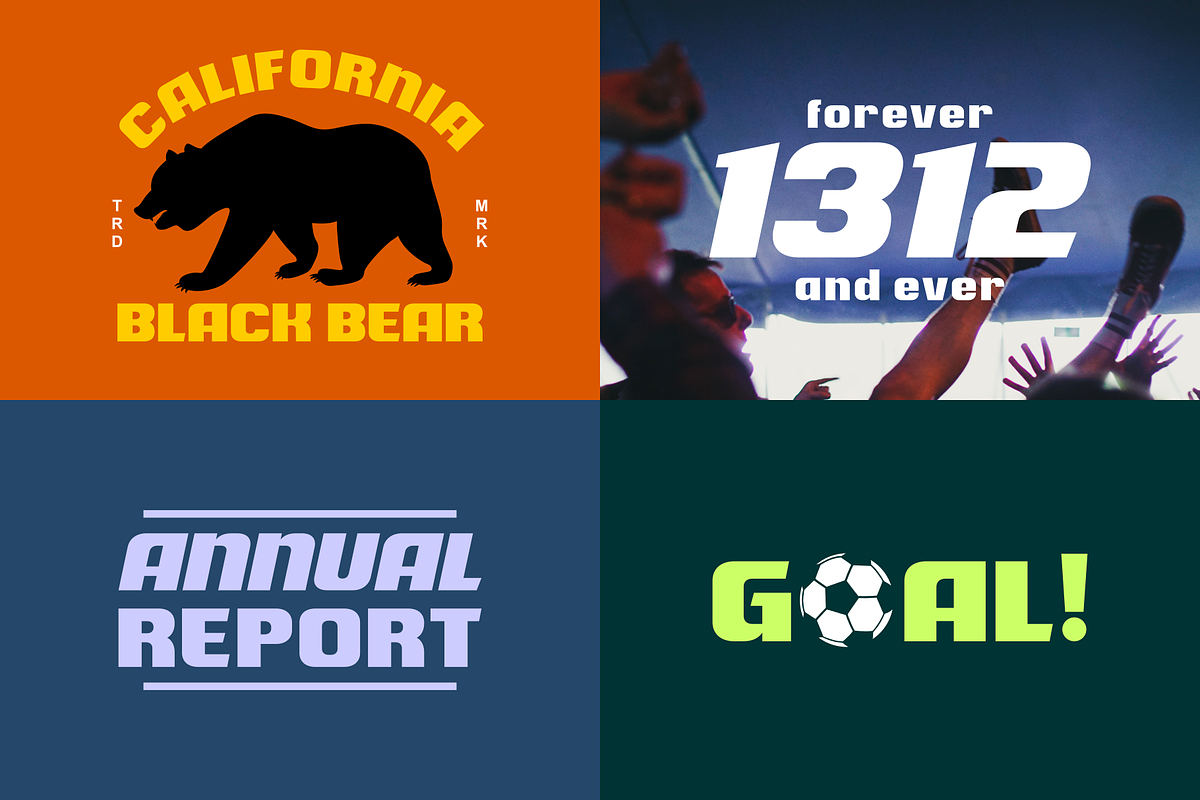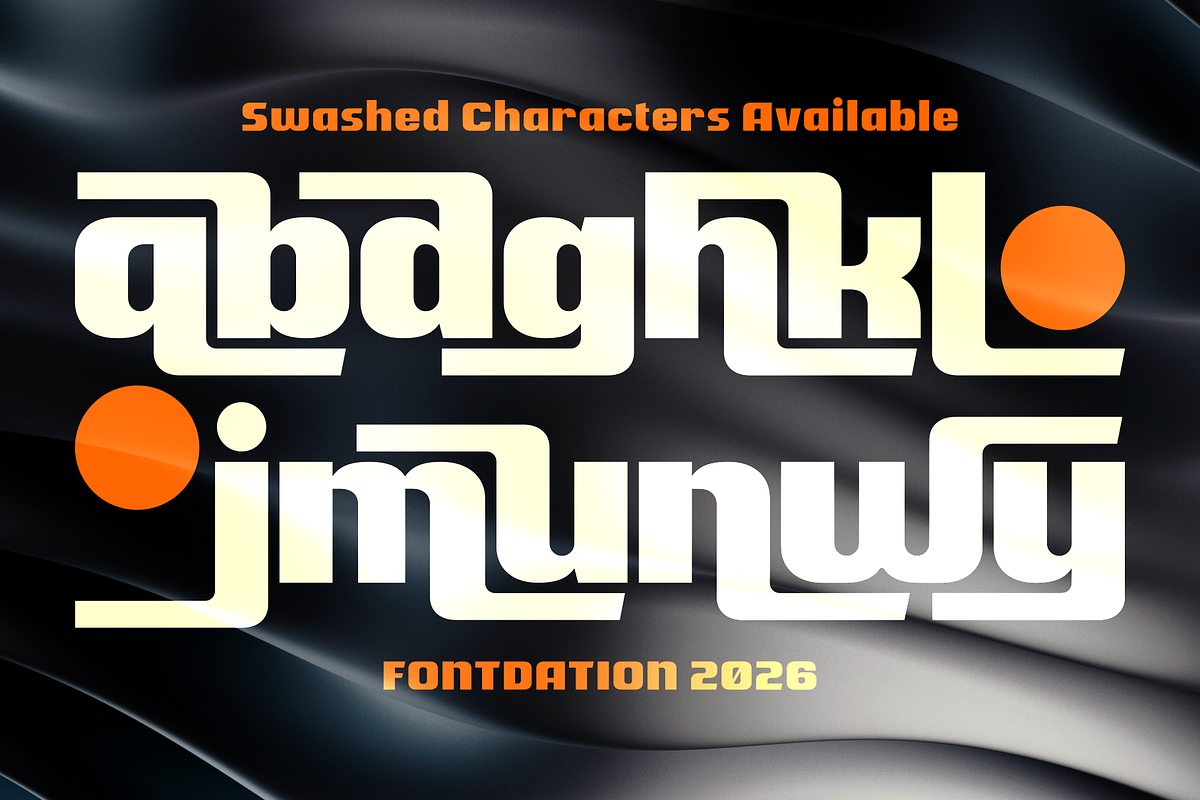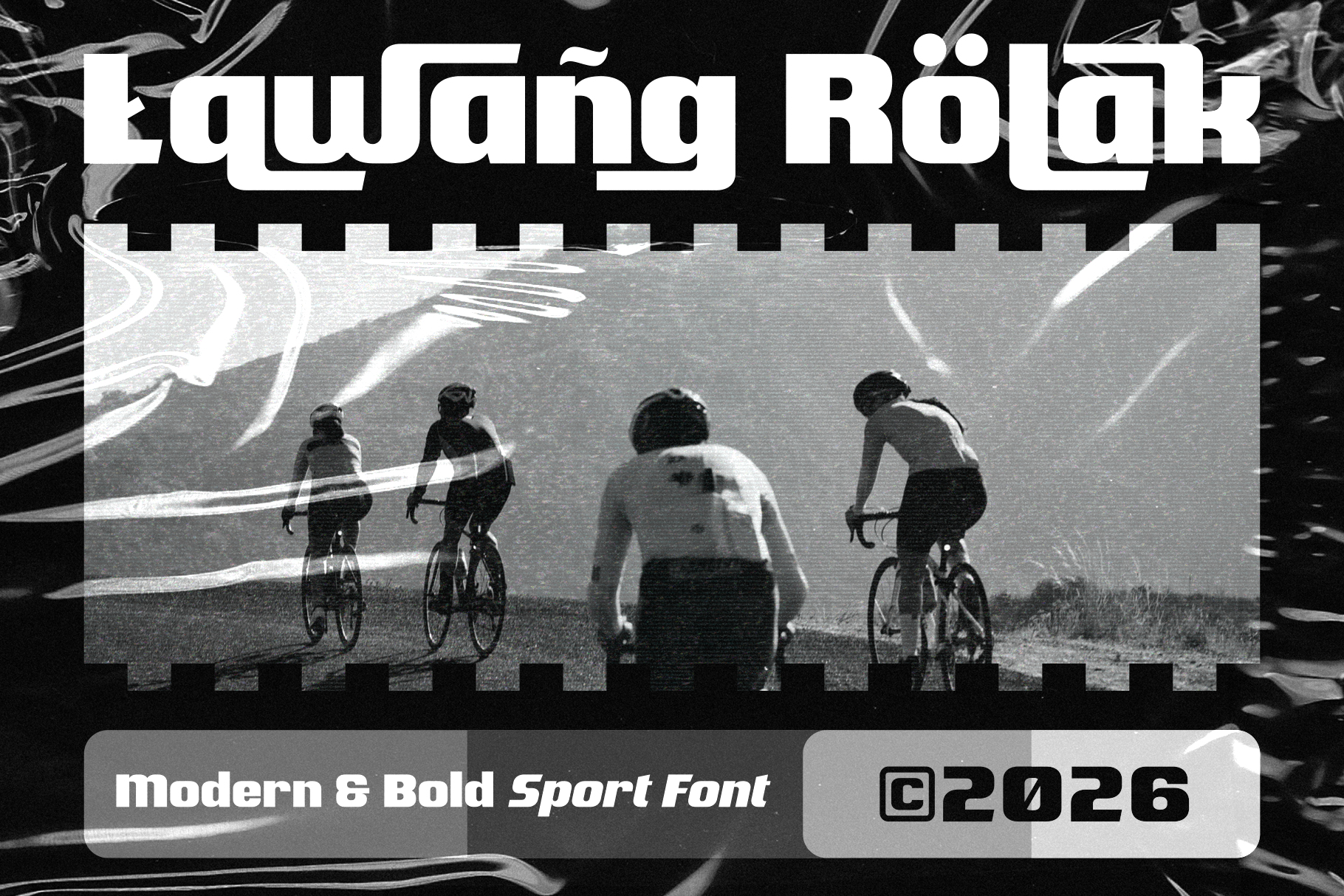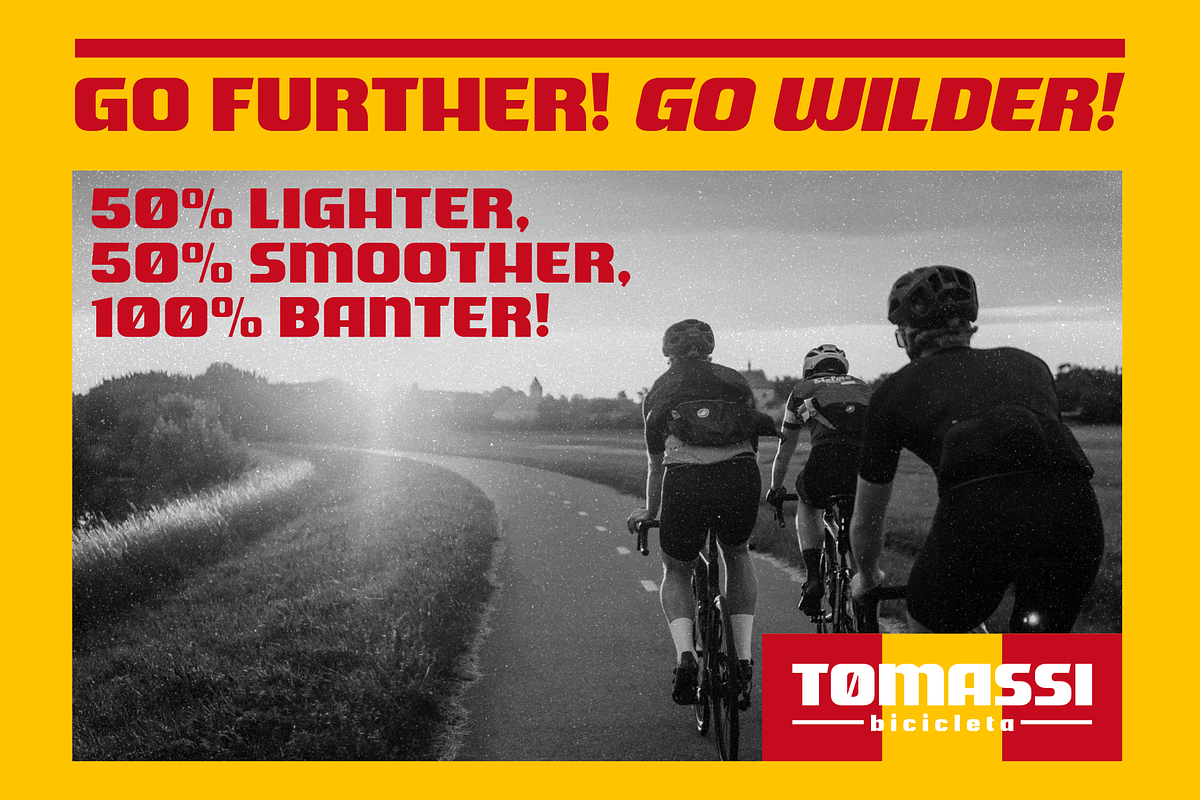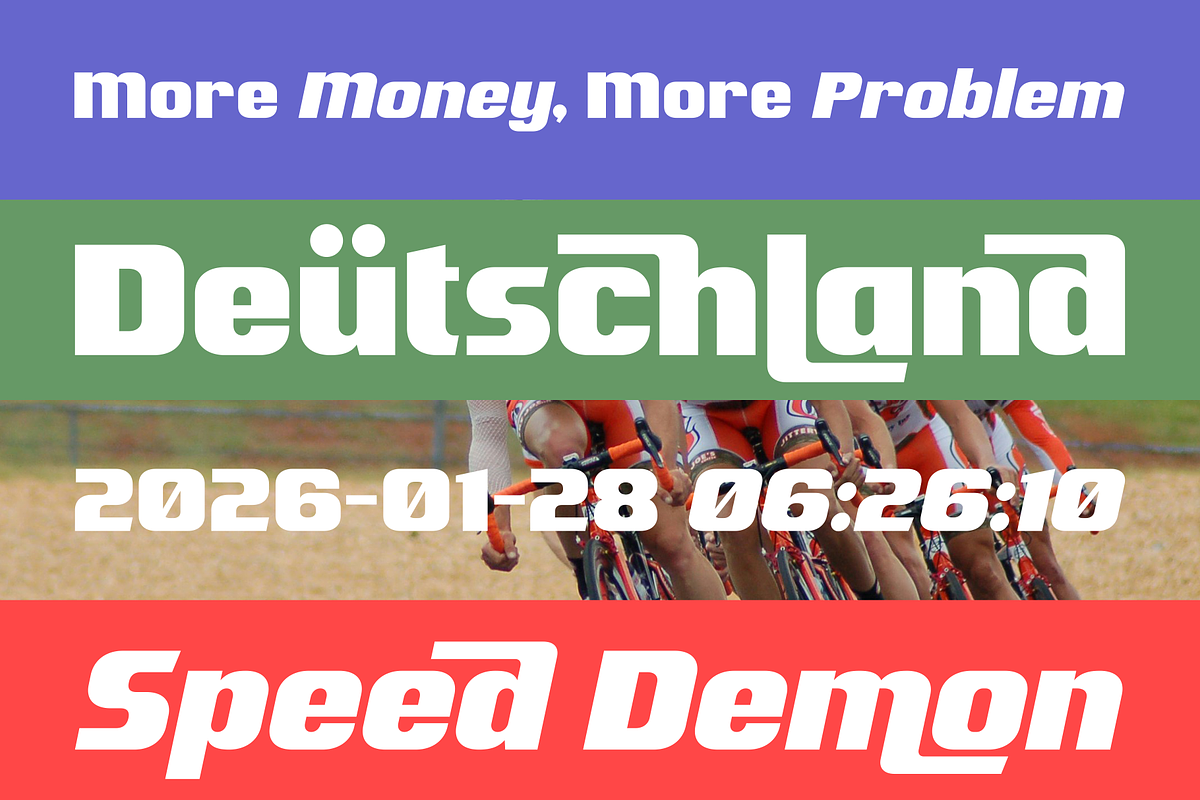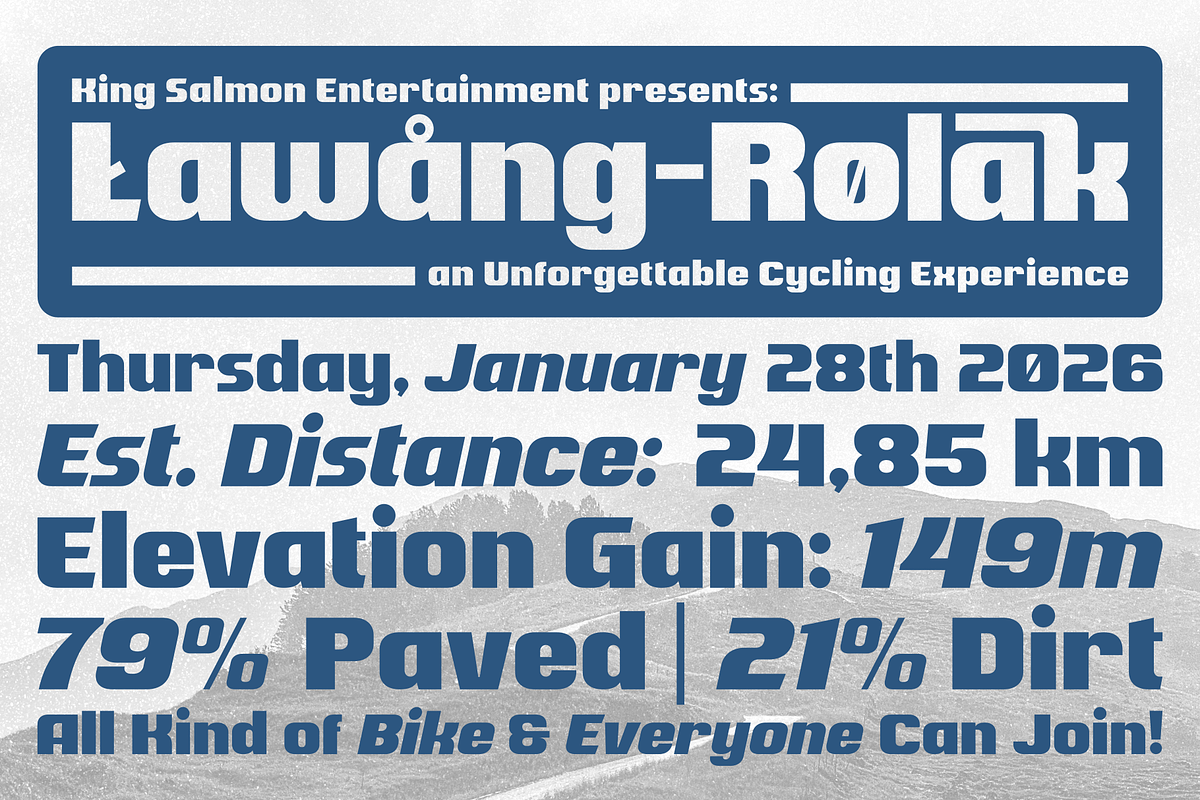
Lawang Rolak | Sport Font
Lawang Rolak is our new sport font release. Mouse-crafted with bold and clean characteristics and agressive personality, this font will give you an instant fast and dynamic feel to your designs. This font is packed with standard uppercase, lowercase, numerals, punctuations, some multilingual and alternate/swash characters that guaranteed will elevate your designing game. PS: Also available in slanted version/faux-italics too, so you can play more with the letter combinations.
Suits best for any sport or racing themed designs, ex: logo/branding, headline, poster, editorial, etc. Will also great for other theme designs too. Available in two styles: Regular and Italic, in both formats: .OTF and .TTF.